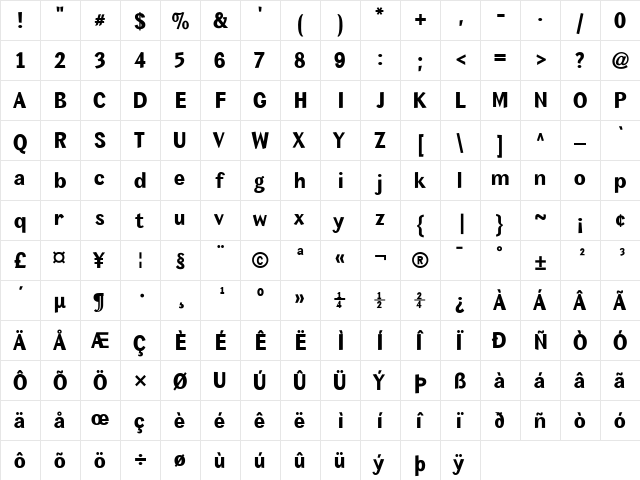
MexSans ExtraBold Font Preview
MexSans ExtraBold
Design Context for MexSans Typeface
MexSans takes a measured approach to typography — its balanced proportions and neutral character make it a reliable workhorse for both digital and print work. The heavy weight commands attention and anchors typographic hierarchies.